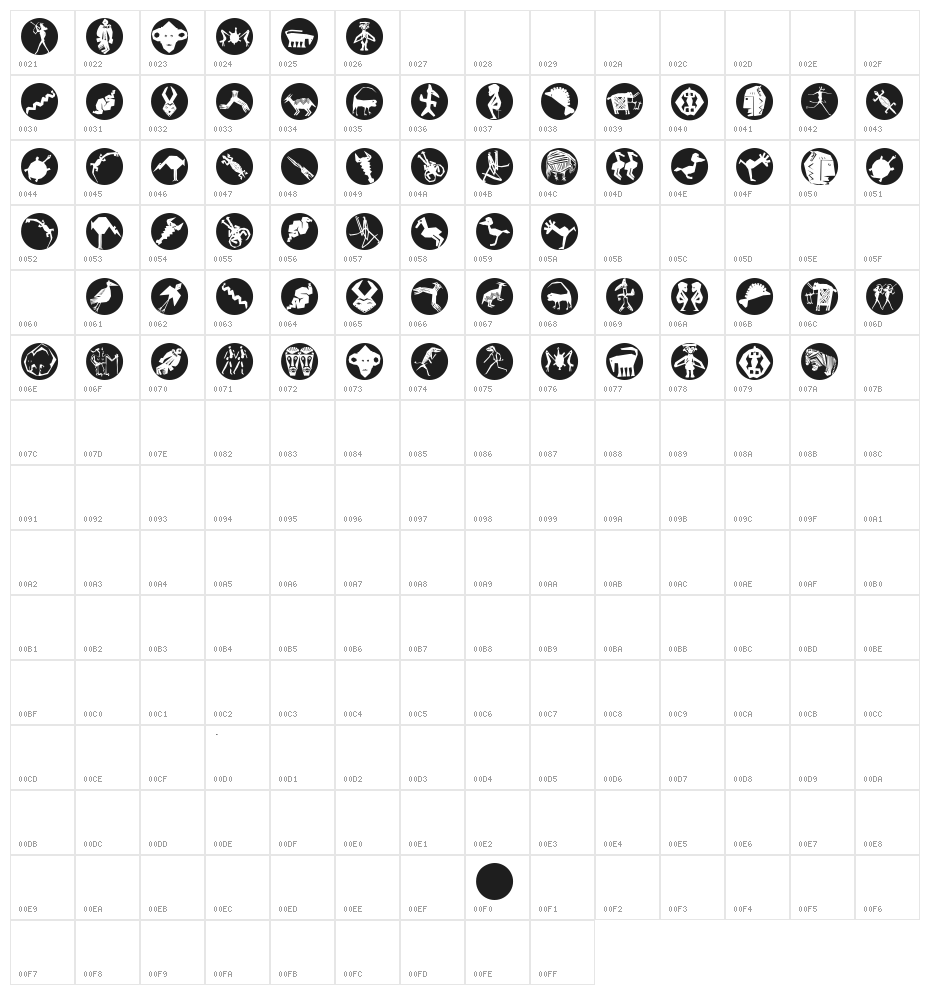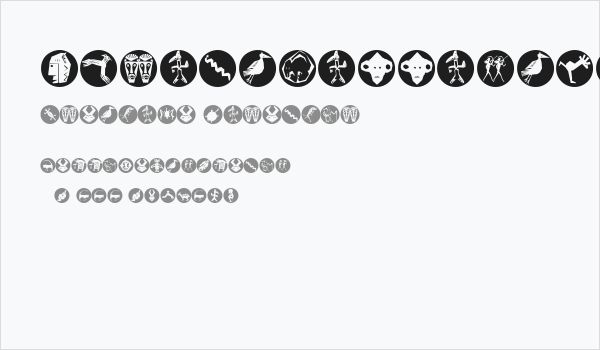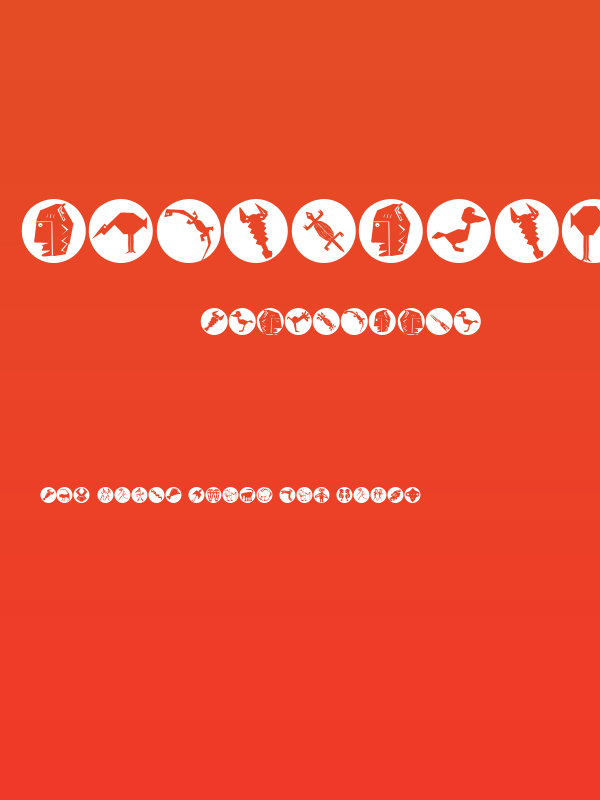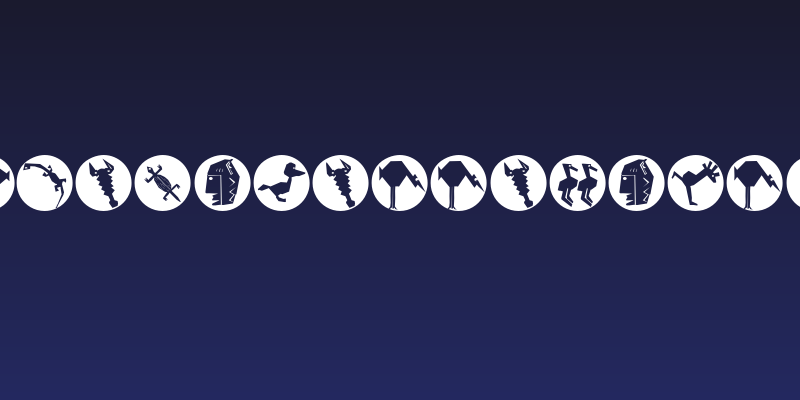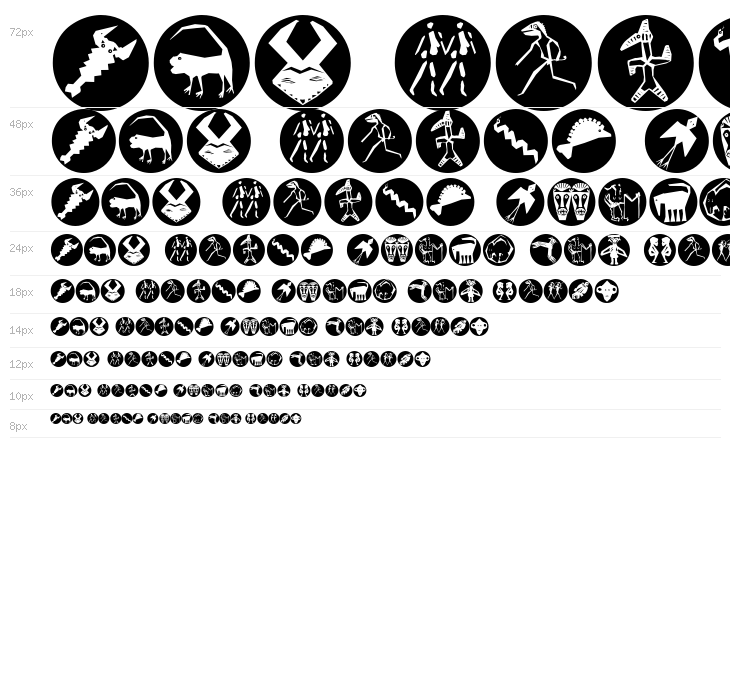
AfricanissimaOSix Font
AfricanissimaOSix Description
A highly decorative and symbolic font featuring hand-drawn, pictographic glyphs inspired by African tribal art and petroglyphs. Each character is enclosed in a solid black circle, with white line art depicting animals, people, masks, and abstract shapes. The style is organic, irregular, and expressive, evoking a sense of cultural heritage and storytelling.
| Overall Style | Decorative, Tribal, Ethnic, Artistic |
| Use Case | Logos, Headlines, Posters, Themed Graphics |
| Proposed Projects | Cultural posters, event branding, educational materials, museum exhibits, album covers, themed invitations. |